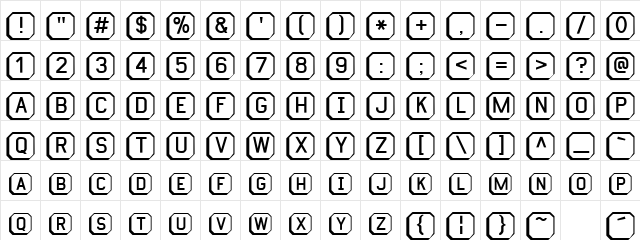
Keyboard Regular Font Preview
Keyboard Regular
Design Context for Keyboard Typeface
Keyboard offers clean, dependable letterforms without strong stylistic allegiance, making it a practical choice for designers who need flexibility.